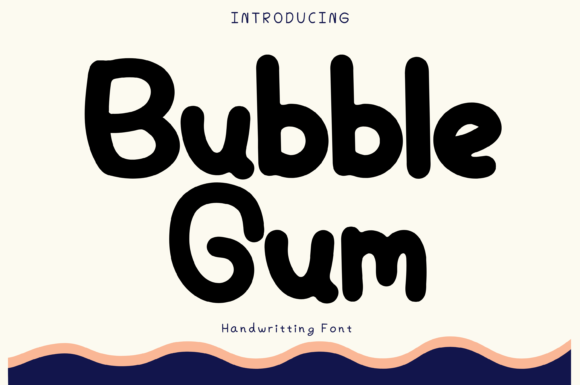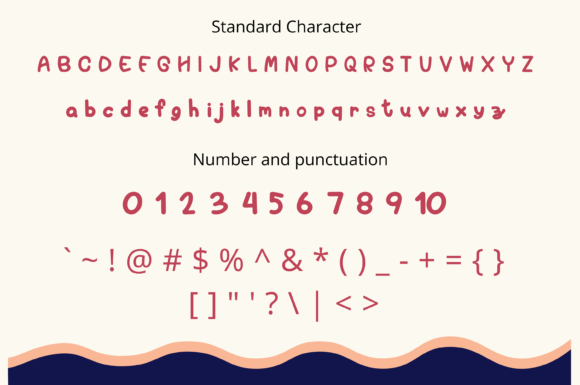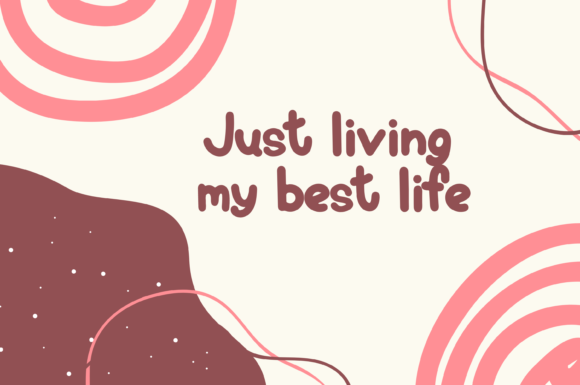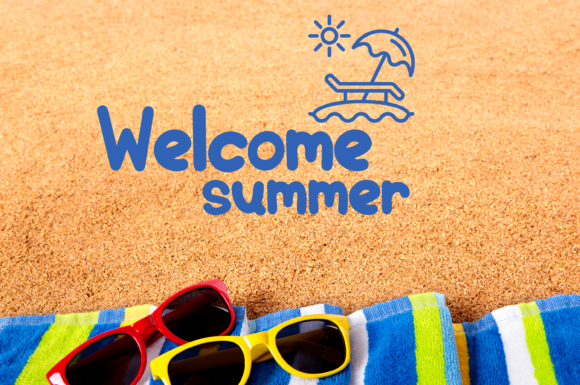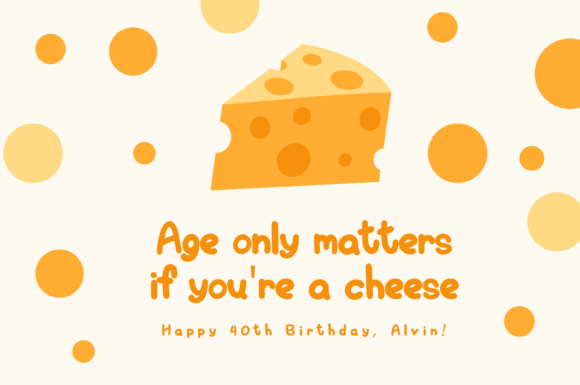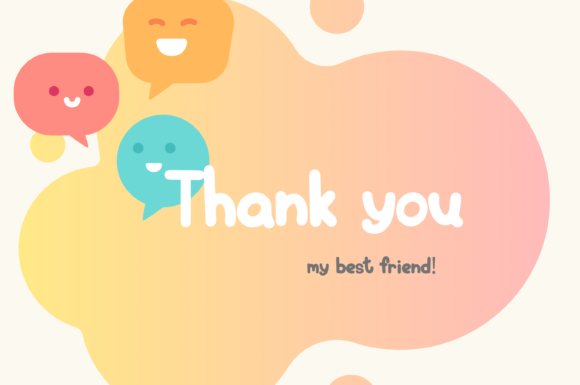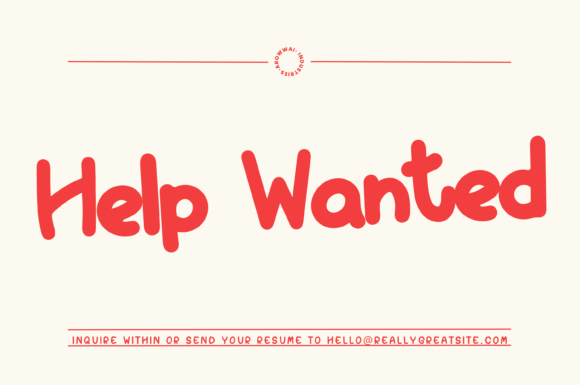
Bubble Gum Font
About Bubble Gum Font
Bubble Gum Style is a charming and pristine handwritten font that injects a playful essence into your design projects. With its whimsical and clean aesthetic, this font proves to be a versatile choice, effortlessly complementing a vast array of creative endeavors. Integrate Bubble Gum Style into your projects, and observe how it dynamically enhances their visual appeal, allowing them to truly stand out.
The whimsical nature of Bubble Gum Style imparts a sense of lighthearted joy to your designs, making it particularly well-suited for projects aiming to convey a fun and imaginative vibe. Whether you’re working on invitations, posters, or social media graphics, Bubble Gum Style adds a delightful touch that captivates and engages your audience.
Characterized by clean lines, Bubble Gum Style maintains excellent readability, ensuring that your message is communicated with clarity and style. This makes it an excellent choice for a diverse range of applications, including branding materials, packaging, blog graphics, and website elements.
Feel free to pair Bubble Gum Style with your creative ideas, and witness how seamlessly it integrates, enhancing the overall visual appeal of your projects. Its adaptability allows it to effortlessly blend into various themes, making it a valuable asset for designers seeking to infuse a touch of personality into their work.
Whether you’re working on a children’s book, developing a playful logo, or designing event invitations, Bubble Gum Style adapts to the tone of your project with ease. It stands as a go-to choice for those in search of a handwritten font that radiates friendliness and creativity.
Embrace Bubble Gum Style as part of your creative toolkit, and experience how it transforms your ideas into eye-catching and memorable creations. This whimsical and clean handwritten font is sure to leave a lasting impression, making your projects uniquely stand out in the most delightful way.